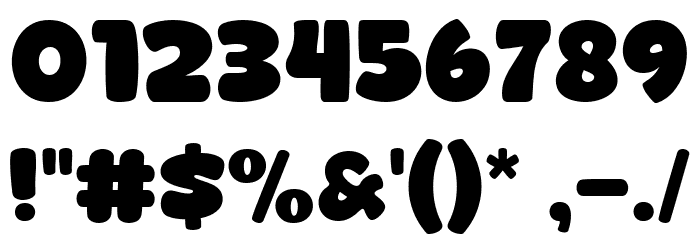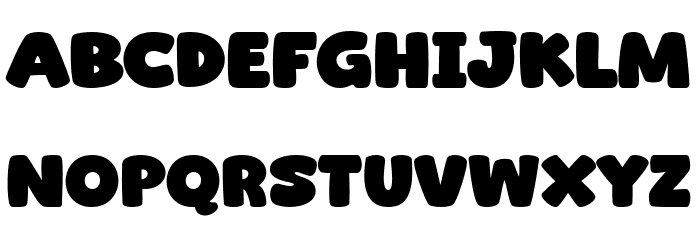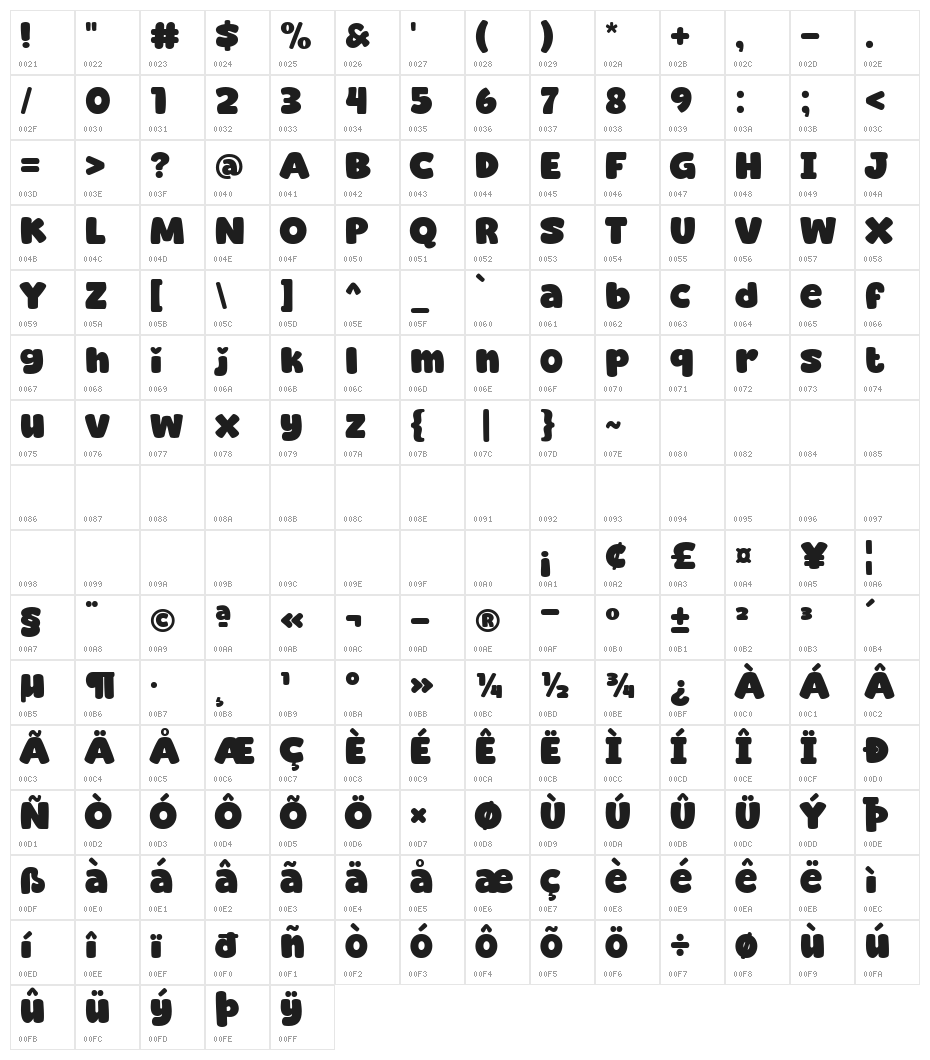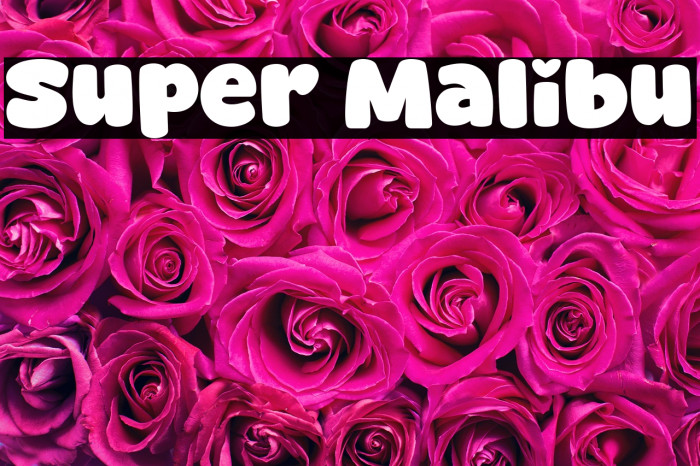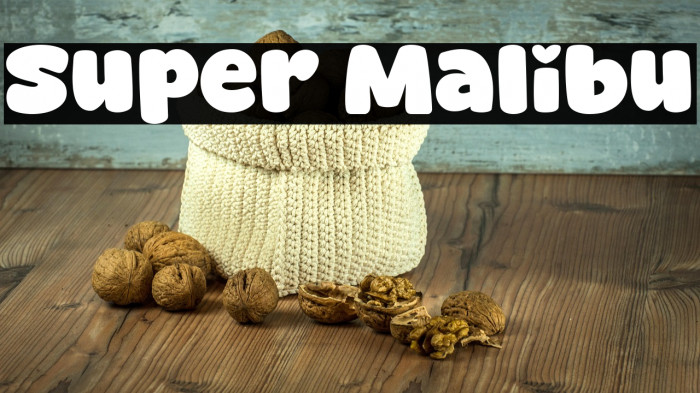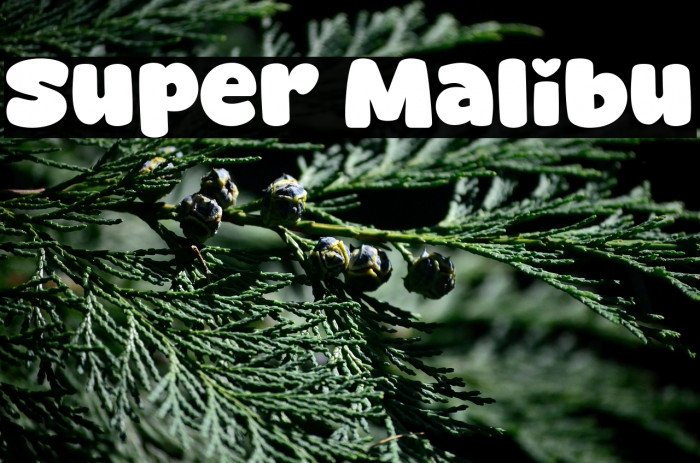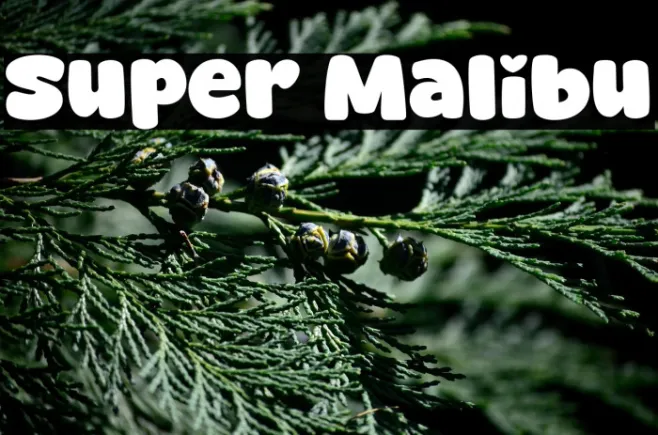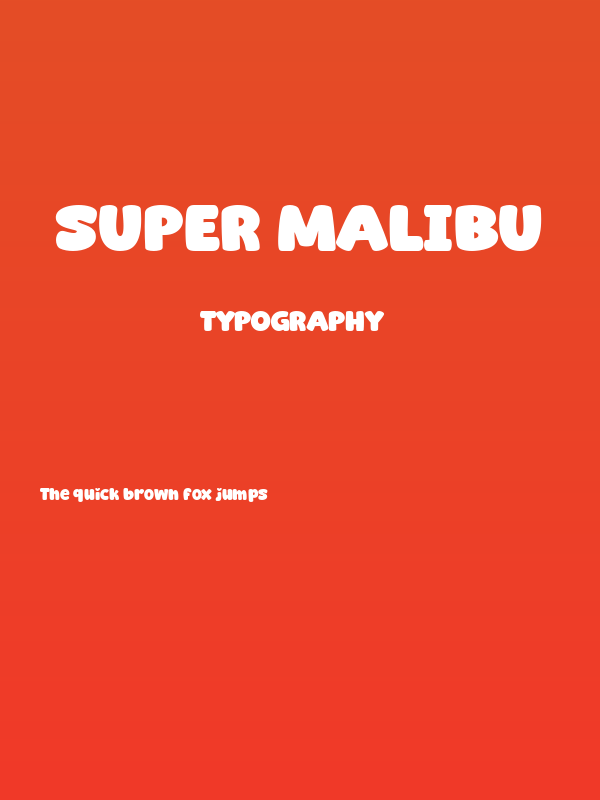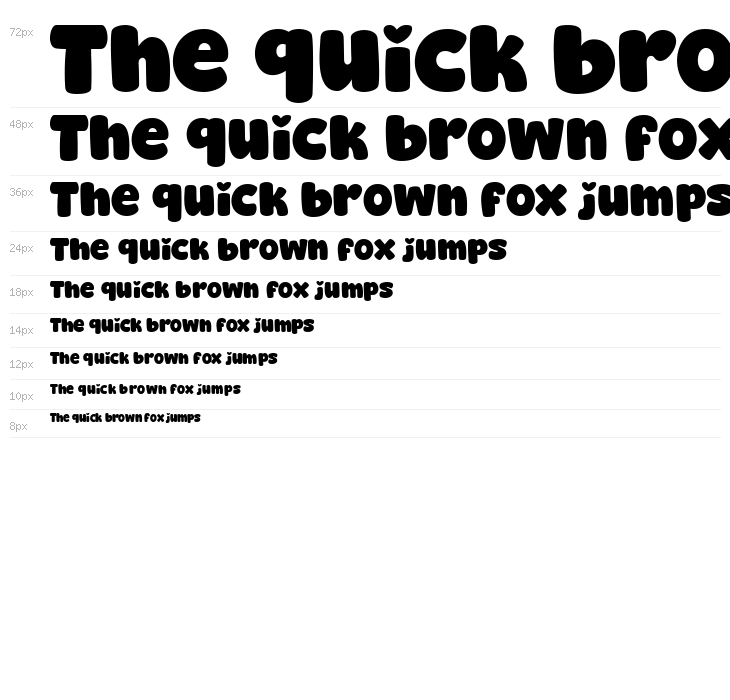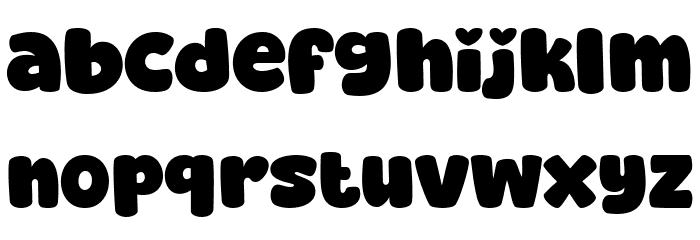
Super Malibu Font
Super Malibu Description
This playful and bold font features rounded, bubble-like characters that exude a sense of fun and whimsy. The letters are thick and uniform, with a consistent stroke width that gives the font a cohesive look. The rounded edges and soft curves make it approachable and friendly, ideal for designs that aim to be inviting and cheerful. The numbers and special characters maintain the same bubbly style, ensuring a harmonious appearance across all text elements. This font is perfect for projects that require a touch of lightheartedness and creativity.
| Overall Style | Playful |
| Use Case | Logos, Headlines, Posters |
| Proposed Projects | Ideal for children's books, playful branding, party invitations, and casual posters. |